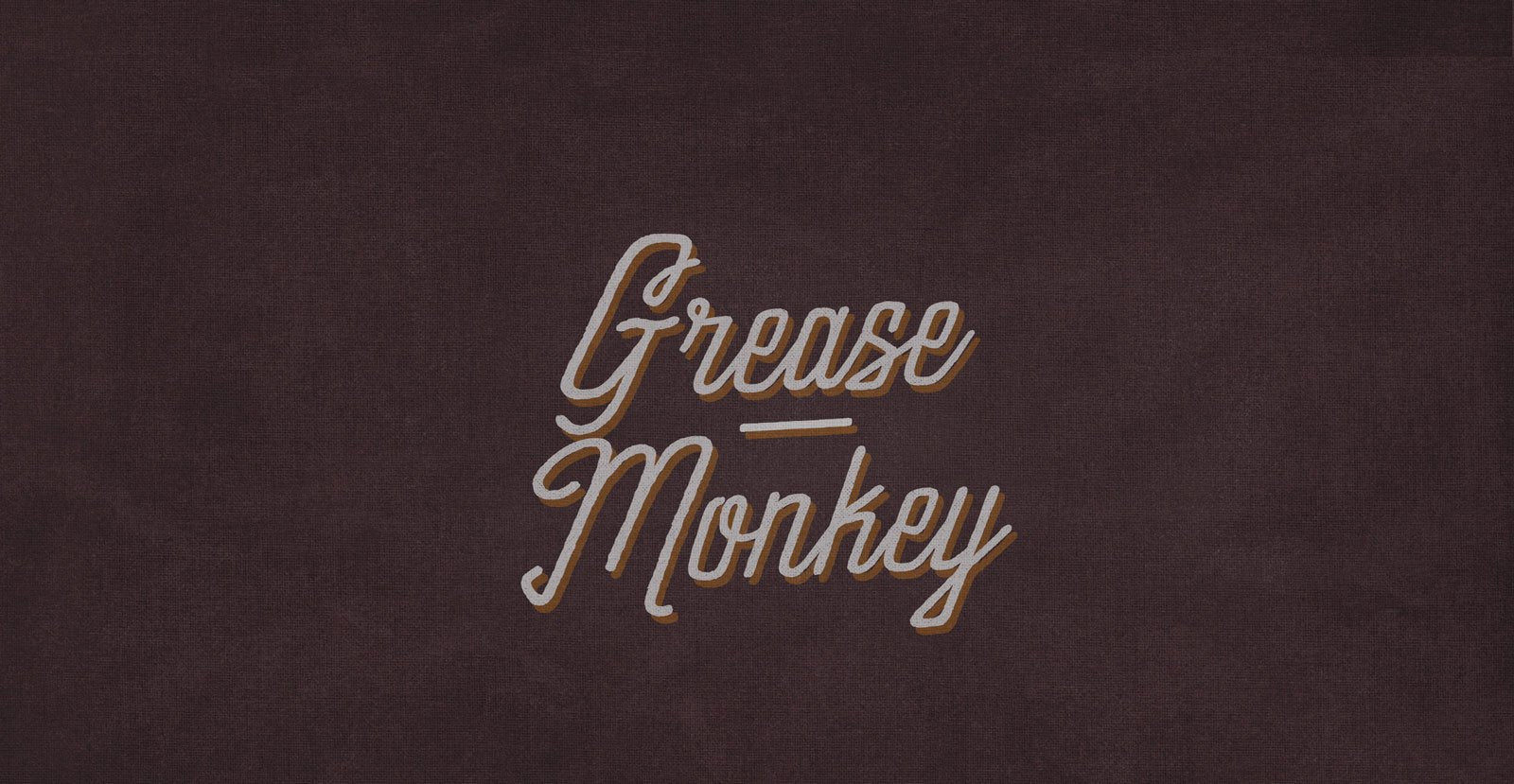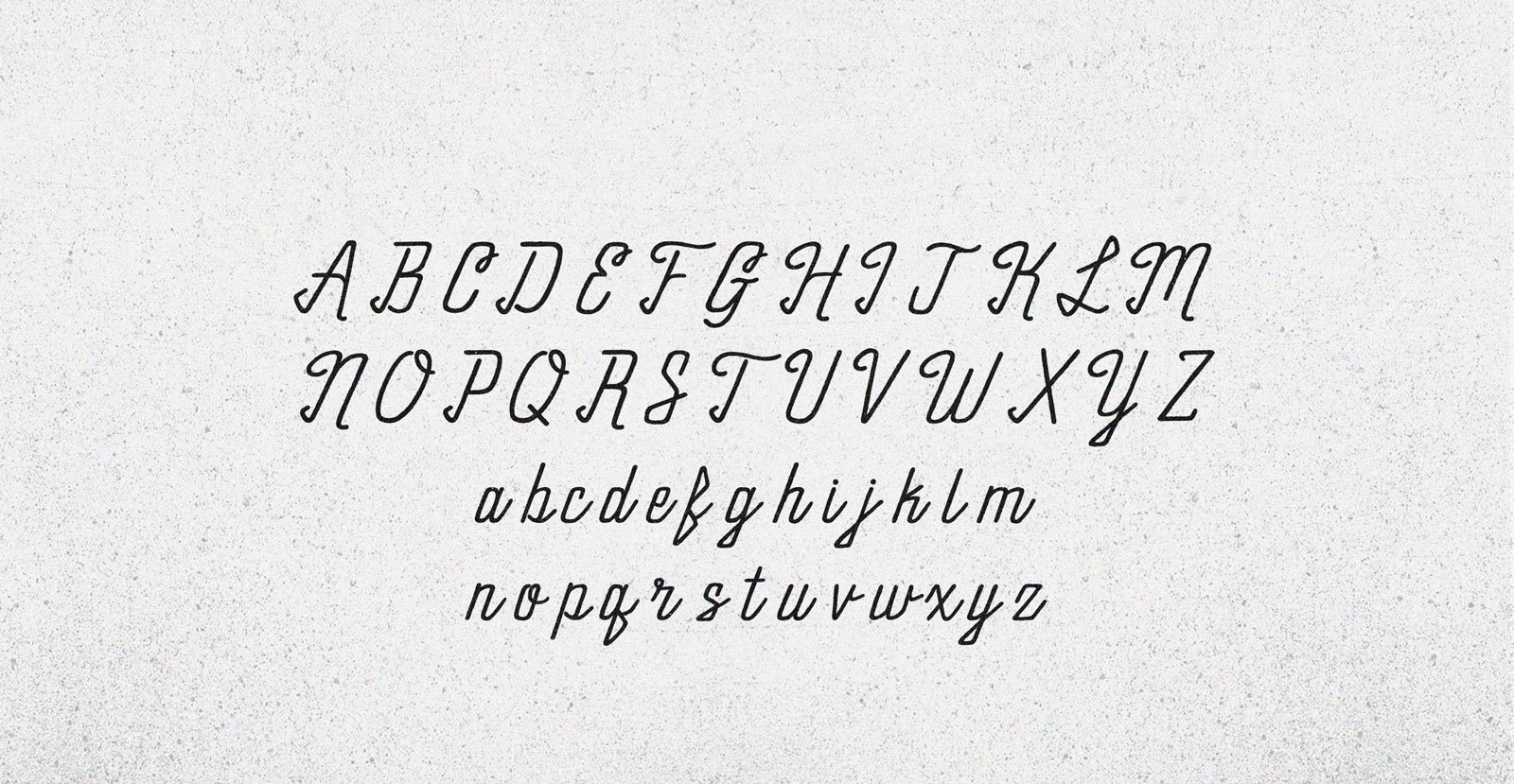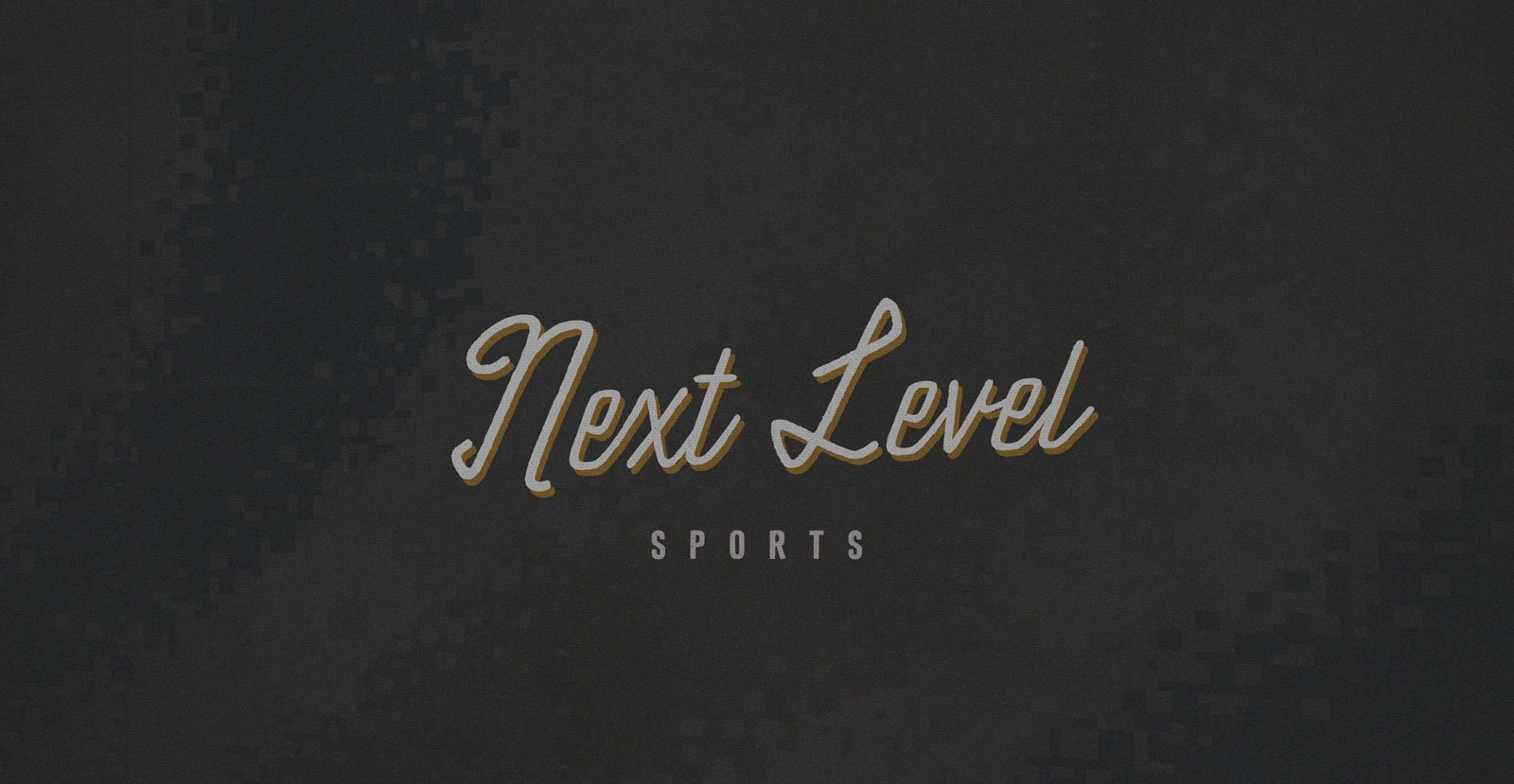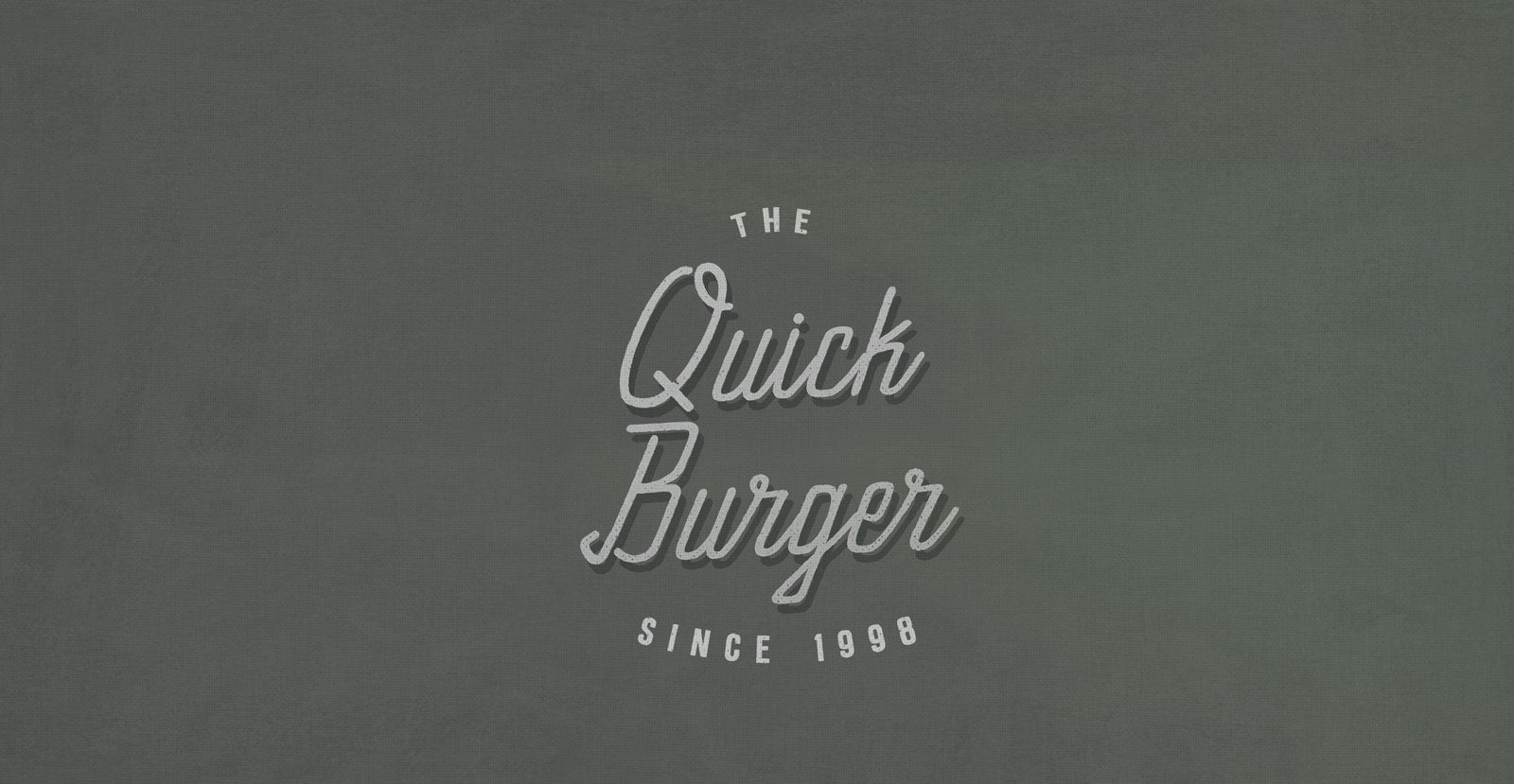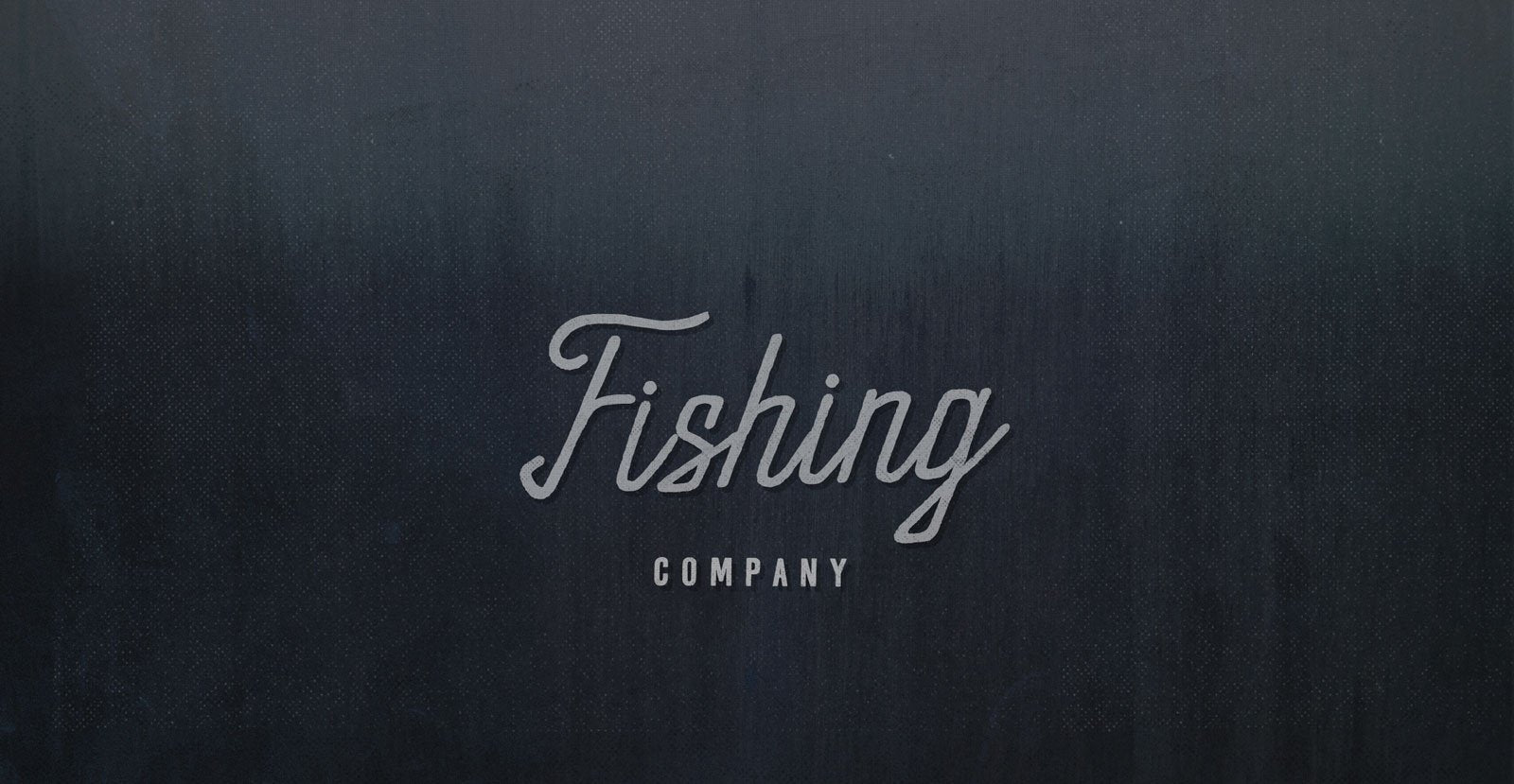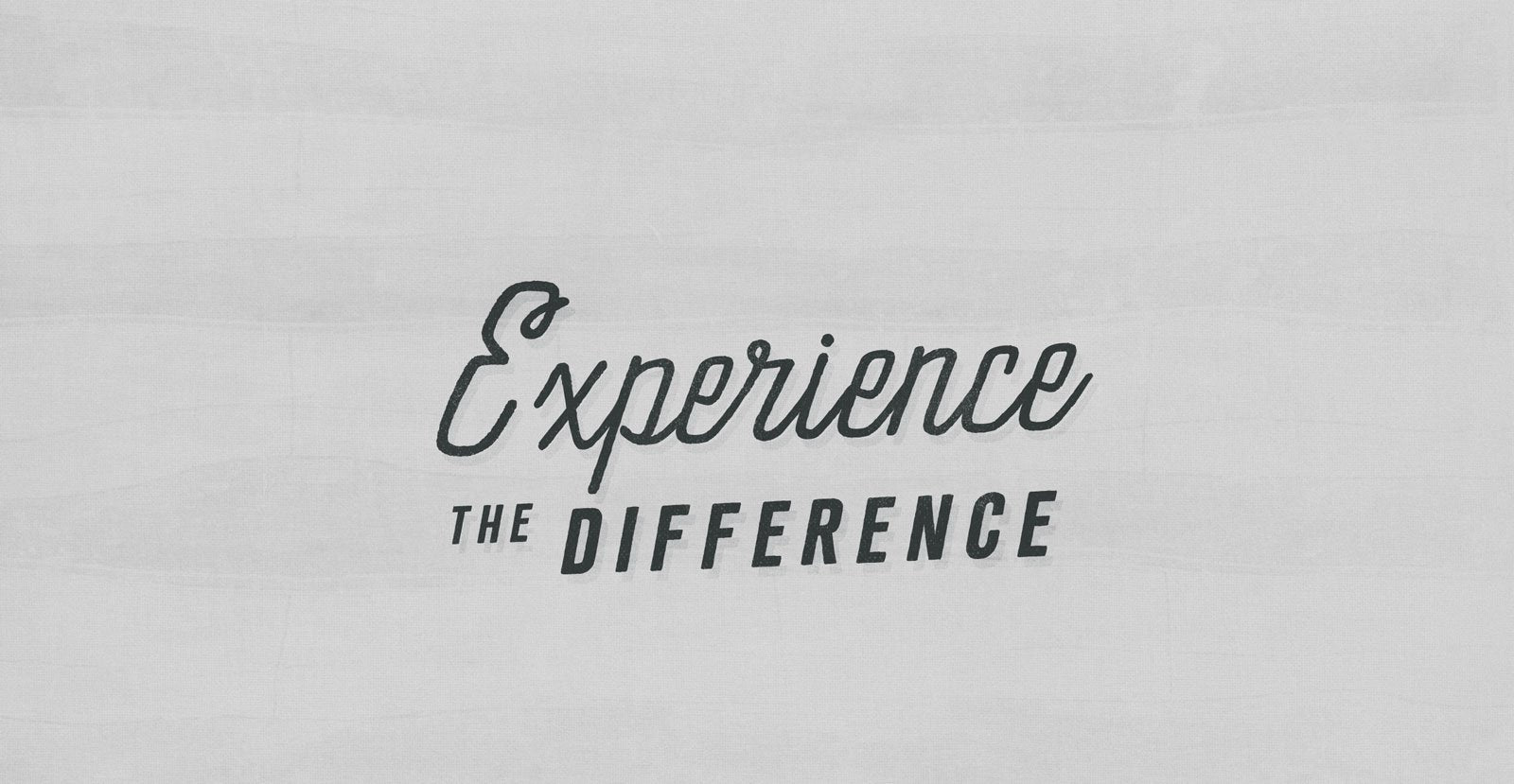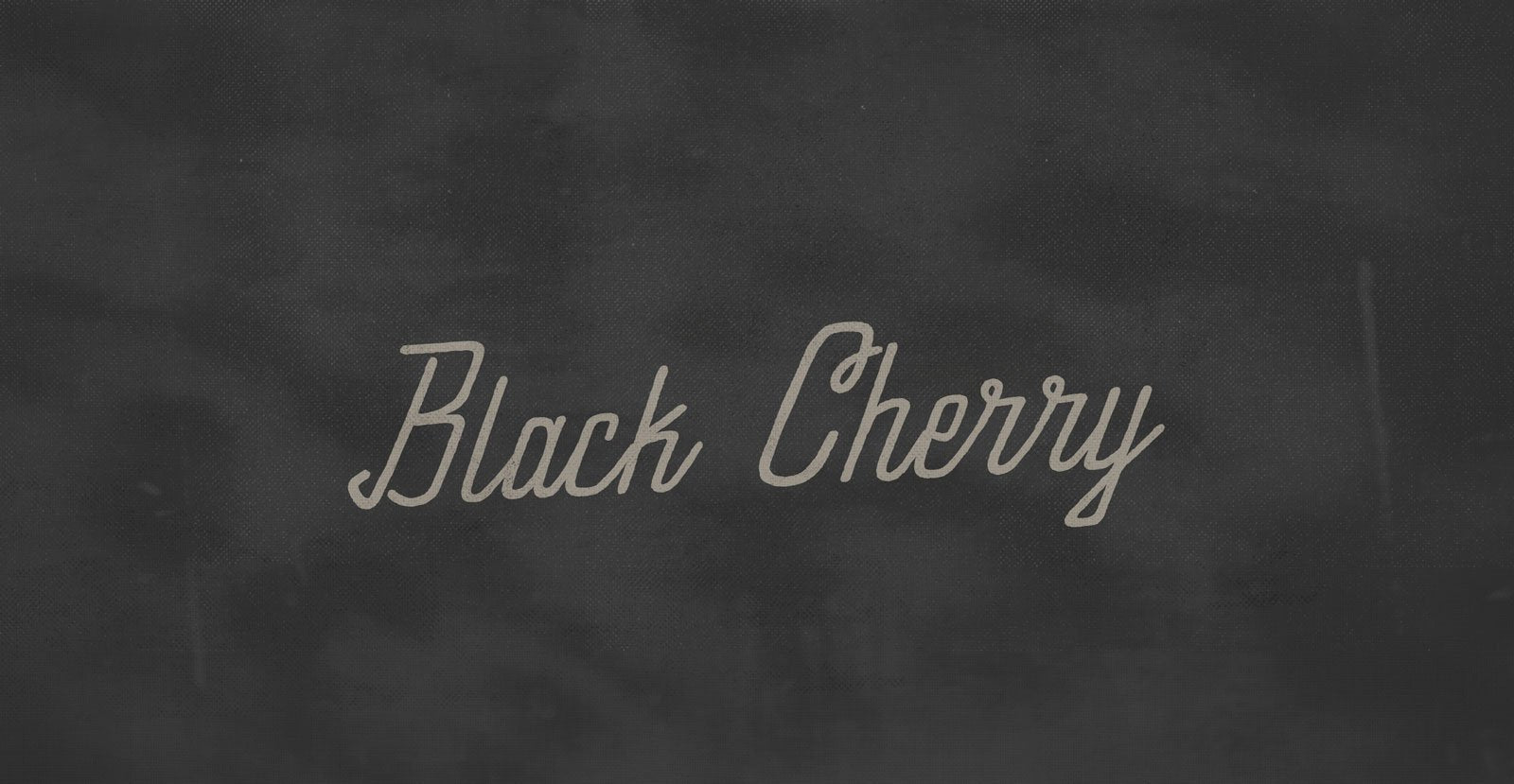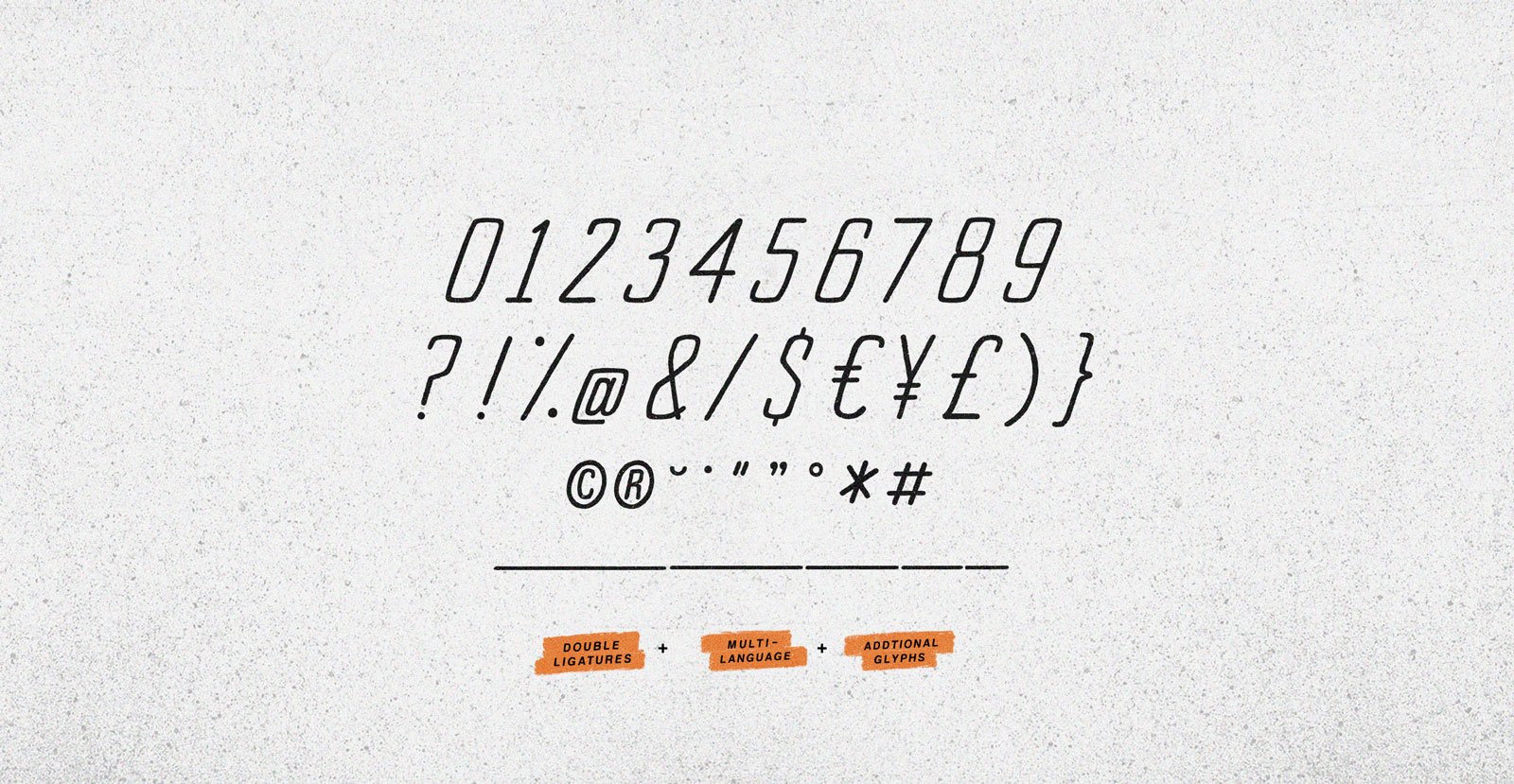
Grease Monkey
Black under the fingernails belies eloquence. This Grease Monkey has his mind on the matter in his hands: Steel under tension between the competing forces of metal-on-metal friction and a Vulcanized grip.
• Underlines